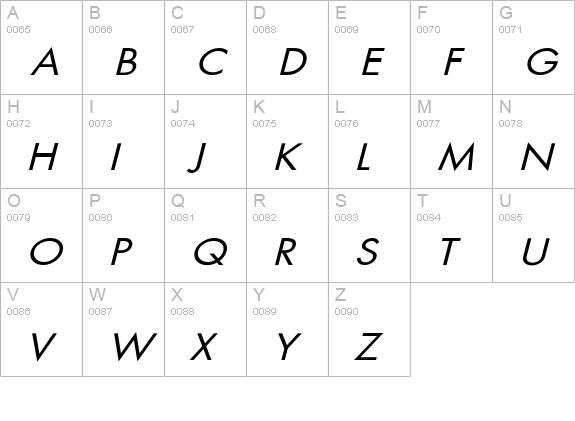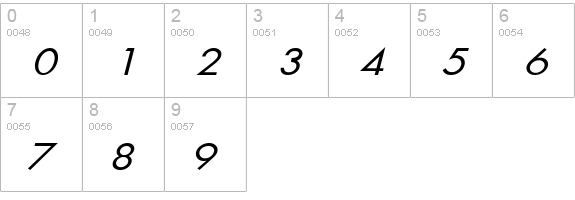
FuturaExtObl-No Font Details
FuturaExtObl-No is a modern and sleek font that exudes elegance and sophistication. Its extended oblique design adds a unique flair to any project, making it stand out from the rest. The sleek lines and sharp angles of this font give it a futuristic and progressive feel, perfect for conveying a sense of innovation and forward-thinking. Whether used in print or digital media, FuturaExtObl-No commands attention and leaves a lasting impression. The best part? This stunning font is available for free download at FontsMarket.com. Don't miss out on the opportunity to enhance your designs with this eye-catching typeface that will surely elevate your work to the next level. Download FuturaExtObl-No today and let your creativity shine!